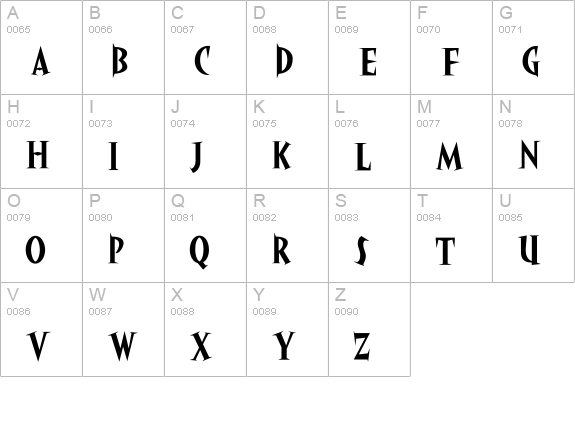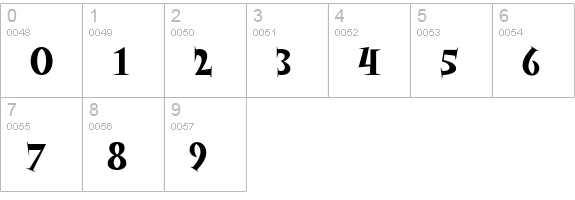
akaHoggle Font Details
The akaHoggle font is a unique and playful typeface that adds a touch of whimsy to any design project. With its quirky letterforms and charming style, akaHoggle is perfect for creating eye-catching headlines, posters, and branding materials. This font exudes a fun and friendly vibe that is sure to grab attention and make your designs stand out. Best of all, akaHoggle is available for free download at FontsMarket.com. Whether you're a seasoned designer looking to add a fresh new font to your collection or a beginner searching for a fun and versatile typeface, akaHoggle is the perfect choice. Don't miss out on the opportunity to enhance your projects with this delightful font - download akaHoggle today and let your creativity shine!